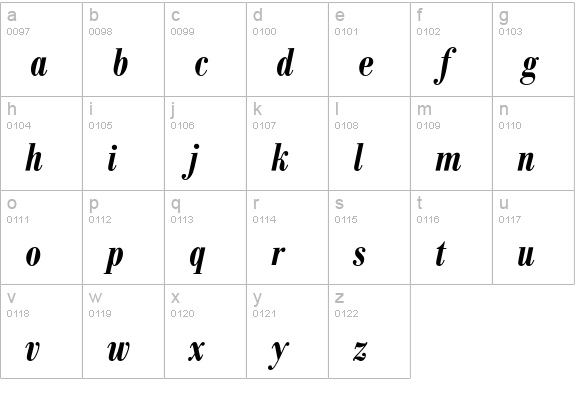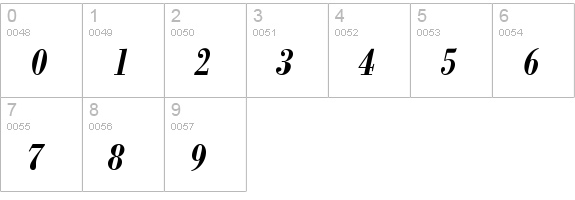
BodoniEF-DemiBoldCondIta is a stylish and sophisticated font that exudes elegance and modernity. With its bold and condensed italic design, this typeface is perfect for making a bold statement in various design projects. Whether used for headlines, titles, or branding materials, BodoniEF-DemiBoldCondIta commands attention and adds a touch of sophistication to any layout. The sleek curves and sharp serifs of BodoniEF-DemiBoldCondIta give it a timeless appeal that is both classic and contemporary. Its versatility allows it to be used across a wide range of applications, from print to digital media. The clarity and readability of this font make it an excellent choice for conveying important information in a clear and concise manner. What sets BodoniEF-DemiBoldCondIta apart is that it is available for free download at FontsMarket.com. This means that you can easily access and use this high-quality font in your projects without any cost. Whether you are a designer, marketer, or content creator, BodoniEF-DemiBoldCondIta is a valuable addition to your font collection. Enhance your designs with the sophistication and style of BodoniEF-DemiBoldCondIta today!